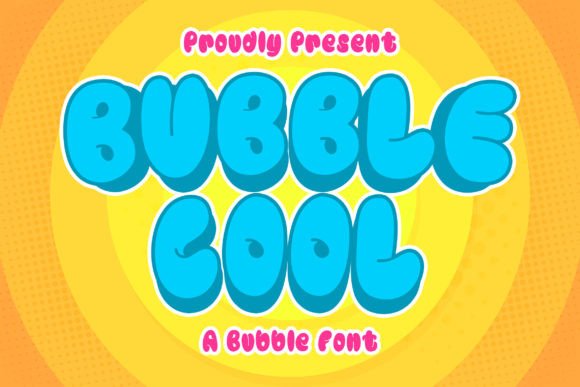
Bubble Cool: A Bold Retro Font for Modern Branding
In the crowded landscape of digital and print design, finding a typeface that commands attention without screaming for it is a rare feat. Bubble Cool arrives as a refreshing solution, blending the nostalgic charm of retro aesthetics with the crisp precision required for modern branding. It is not merely a decorative element; it is a strategic tool for designers, entrepreneurs, and creators looking to inject personality into their visual identity. Whether you are crafting a logo for a new beverage startup or designing eye-catching social media graphics, this font offers a distinct voice that resonates with audiences seeking authenticity and fun.
The Visual Personality of Bubble Cool
At its core, Bubble Cool is defined by its bold, rounded forms and clean lines. Unlike traditional serif fonts that rely on historical ornamentation or rigid sans serif fonts that prioritize minimalism, this display font occupies a unique space in the spectrum of modern typography. The characters possess a "bubbly" quality that mimics the organic shapes found in mid-century advertising and pop art, yet they maintain a structured grid that ensures legibility even at smaller sizes.
The style is inherently energetic. When you apply this typeface to a headline, it immediately suggests approachability and creativity. It lacks the stiffness often associated with corporate communication, making it an ideal choice for brands that want to appear human, friendly, and innovative. The complete character set, ranging from uppercase letters to lowercase numbers and symbols, ensures that you have the flexibility to create cohesive designs without needing to supplement with other fonts. This completeness is crucial for maintaining consistency across various design assets, from business cards to billboards.
Strategic Applications Across Industries
The versatility of Bubble Cool extends far beyond simple text decoration. Its robust structure makes it particularly effective for logo design and brand identity projects where memorability is key. Imagine a coffee shop or a craft brewery using this font for their signage; the rounded edges soften the brand image, inviting customers in with a sense of warmth and community. Similarly, in the packaging design sector, this font can transform a standard product label into a standout item on the shelf, catching the eye through its playful yet professional aesthetic.
For those in the apparel industry, Bubble Cool translates beautifully onto t-shirts and merchandise. The thick strokes of the letters hold up well during printing processes like screen printing or vinyl cutting, ensuring durability and clarity. Crafters utilizing Cricut machines will find the font's closed loops and solid forms easy to work with, reducing the risk of weeding errors while producing high-quality stickers and decals. In the realm of editorial design, such as magazines and books, it serves as an excellent choice for chapter headings or pull quotes, breaking up dense blocks of text with a burst of visual interest.
Digital creators also benefit significantly from this creative font. On platforms like YouTube and Instagram, where competition for attention is fierce, thumbnails and post overlays need to be impactful instantly. Bubble Cool provides that immediate hook. Its bold nature ensures that text remains readable even when scaled down for mobile screens, a critical factor for social media graphics and web design.
Impact on Readability and Brand Perception
While the primary appeal of Bubble Cool is its decorative flair, its impact on readability and visual hierarchy cannot be overstated. A well-chosen font guides the viewer's eye and establishes the tone of the message before a single word is read. Because this font features distinct letterforms with generous spacing, it avoids the clutter often seen in overly stylized scripts or handwritten fonts. This clarity supports strong visual hierarchy, allowing headlines to dominate the layout while body copy remains secondary.
From a psychological perspective, the use of rounded, bubbly shapes influences audience engagement by evoking feelings of joy and nostalgia. Brands that adopt this style signal that they are not afraid to be different, fostering a connection with consumers who value creativity and individuality. However, it is important to recognize that Bubble Cool is best suited for short-form content. Using it for long paragraphs can lead to reader fatigue due to its heavy weight and unique shape. Therefore, understanding when to deploy this premium font is essential for maintaining professionalism and ensuring your message is received clearly.
Practical Guidelines for Implementation
Integrating Bubble Cool into your workflow requires a thoughtful approach to ensure it enhances rather than overwhelms your design. Start by evaluating the project fit. If your brand voice is serious, legalistic, or highly technical, this font may clash with your overall message. Conversely, if you are targeting a younger demographic, lifestyle markets, or creative industries, it is likely a perfect match.
When considering font pairing, simplicity is your ally. Since Bubble Cool is so expressive, pair it with a neutral, clean sans-serif font for body text. This combination creates a balanced look where the display font grabs attention, and the supporting text ensures information is conveyed efficiently. Avoid pairing it with other decorative styles, as this can result in a chaotic and unprofessional appearance.
Before finalizing any design, test the font in various contexts. Check how it looks in black and white, at small sizes, and against different background colors. Ensure that the specific characters you needโsuch as ampersands or special currency symbolsโare included in the set to avoid last-minute substitutions. Finally, always review the licensing terms. As a commercial font, it is vital to understand the permissions regarding web usage, app integration, and merchandise production to protect your business legally.
Ultimately, Bubble Cool is more than just a collection of letters; it is a vehicle for storytelling. By leveraging its retro-modern aesthetic, you can elevate your projects, strengthen your brand recognition, and create designs that truly resonate with your audience. Whether you are a seasoned designer or a small business owner taking control of your visual identity, this font offers the tools you need to make a lasting impression.